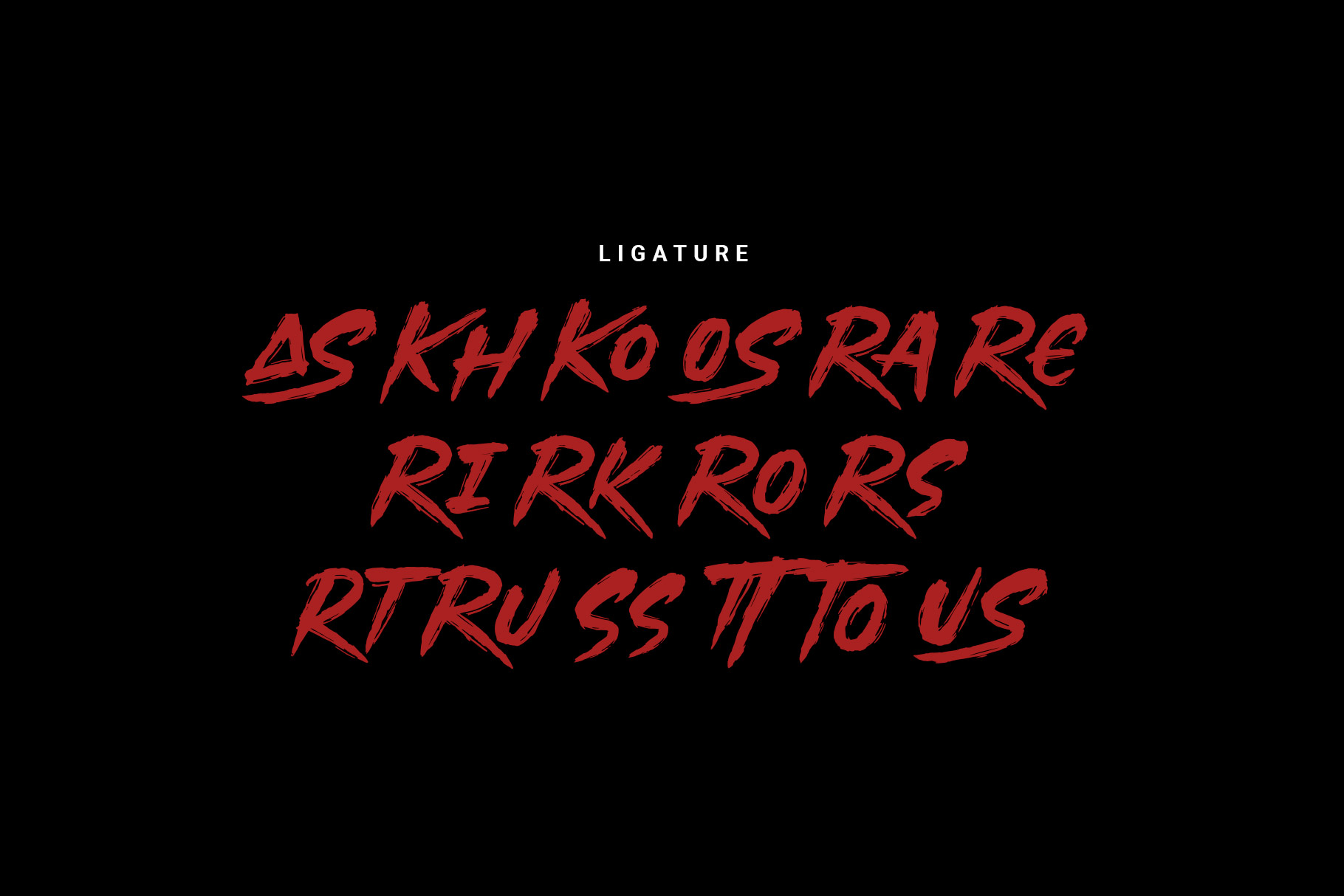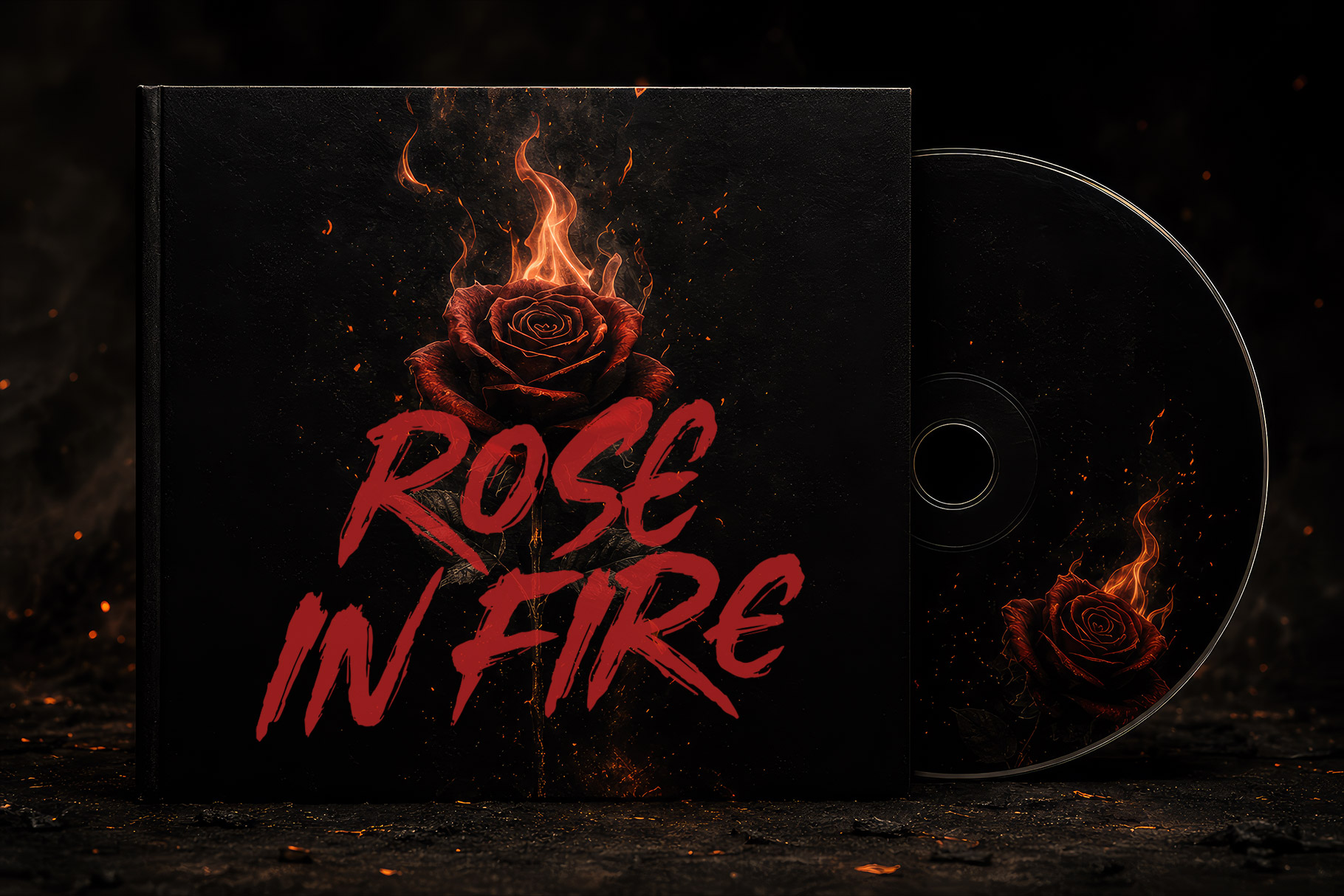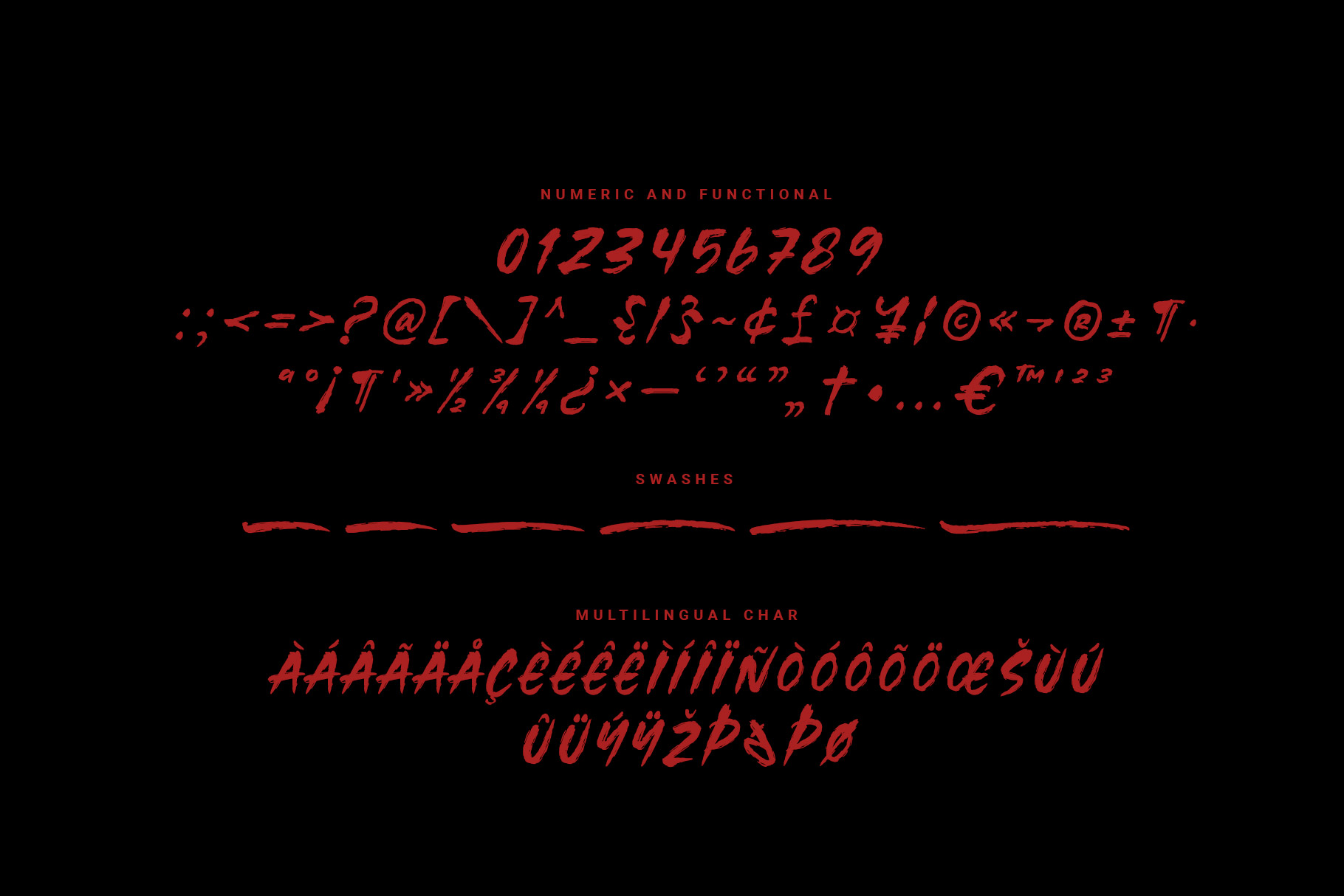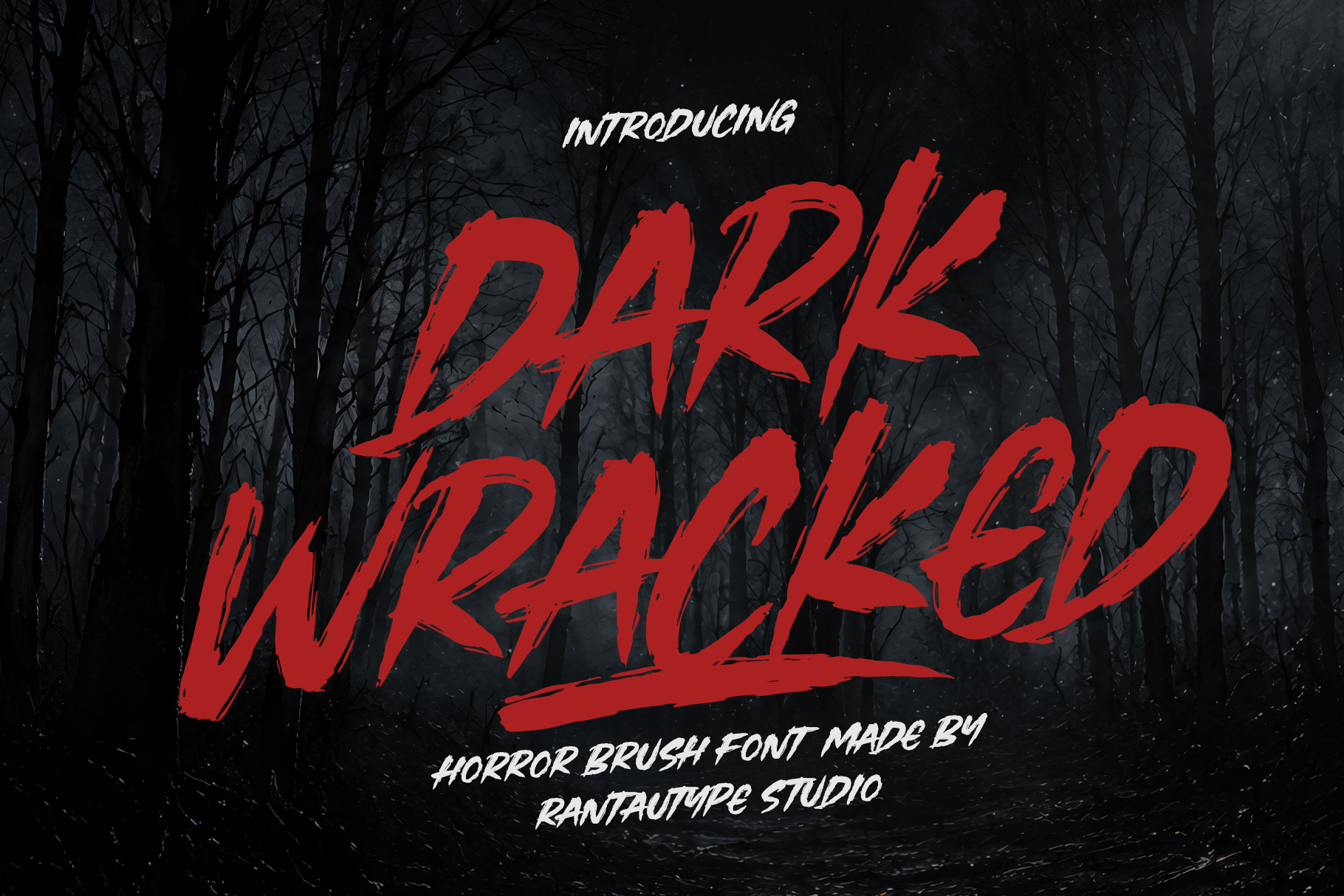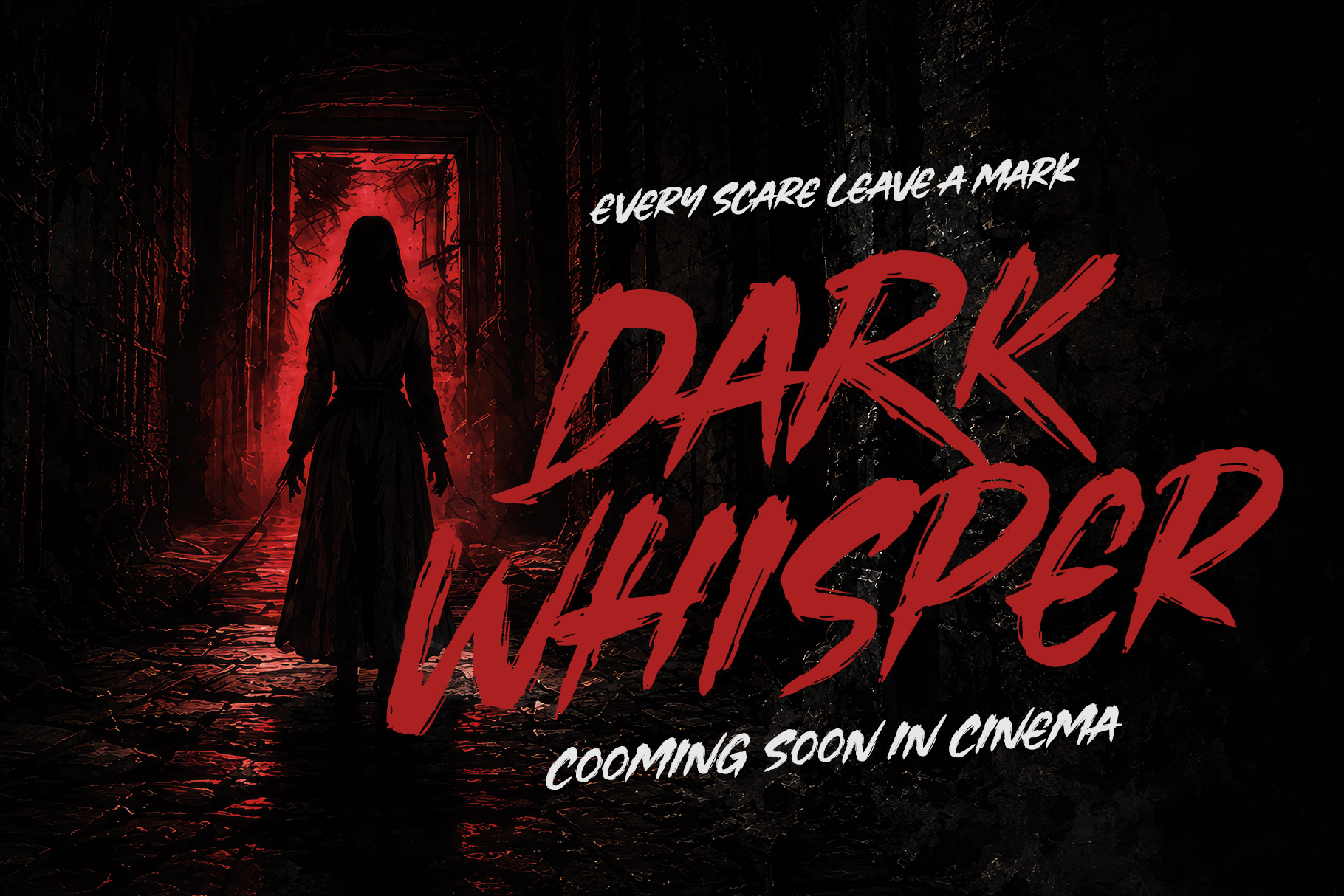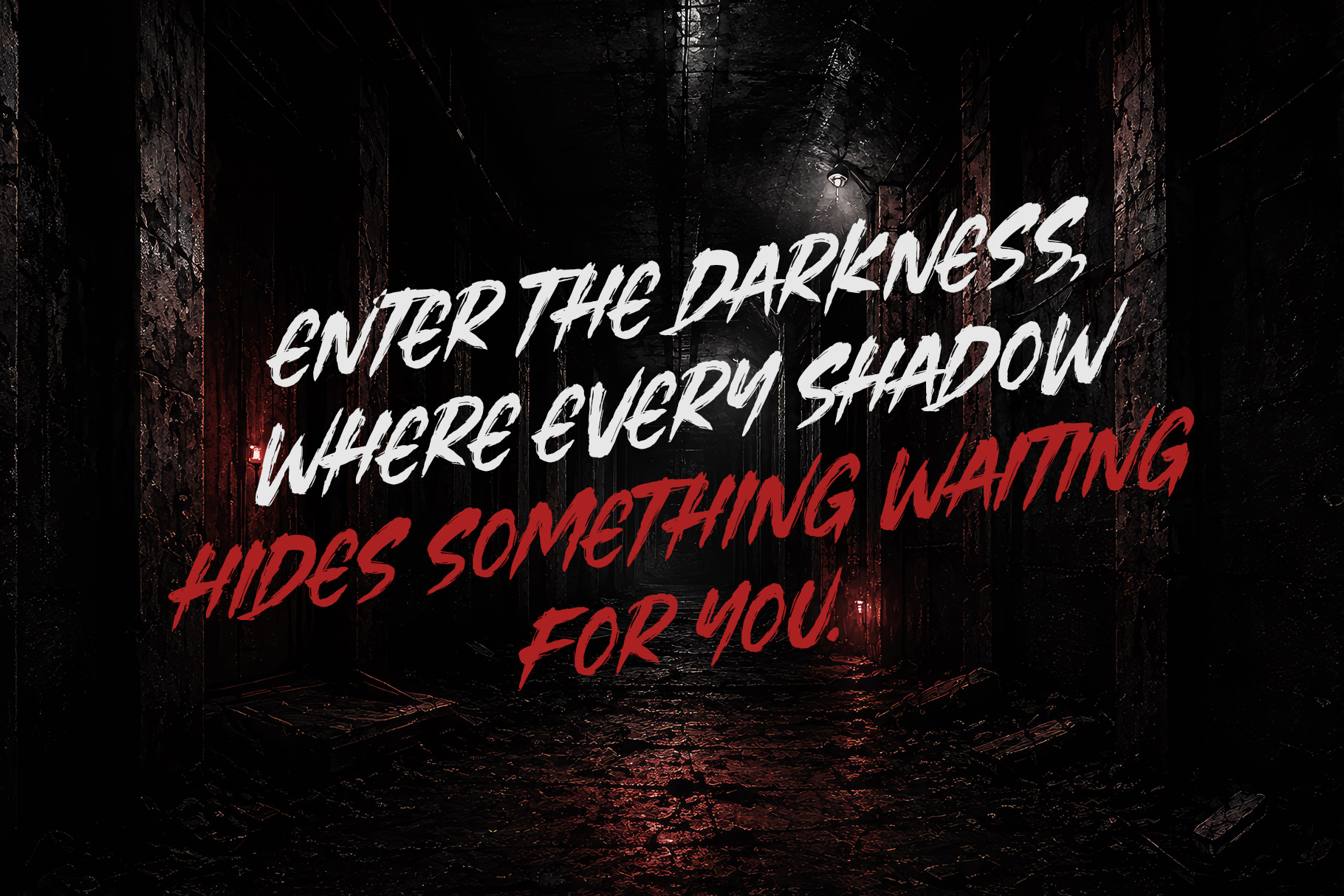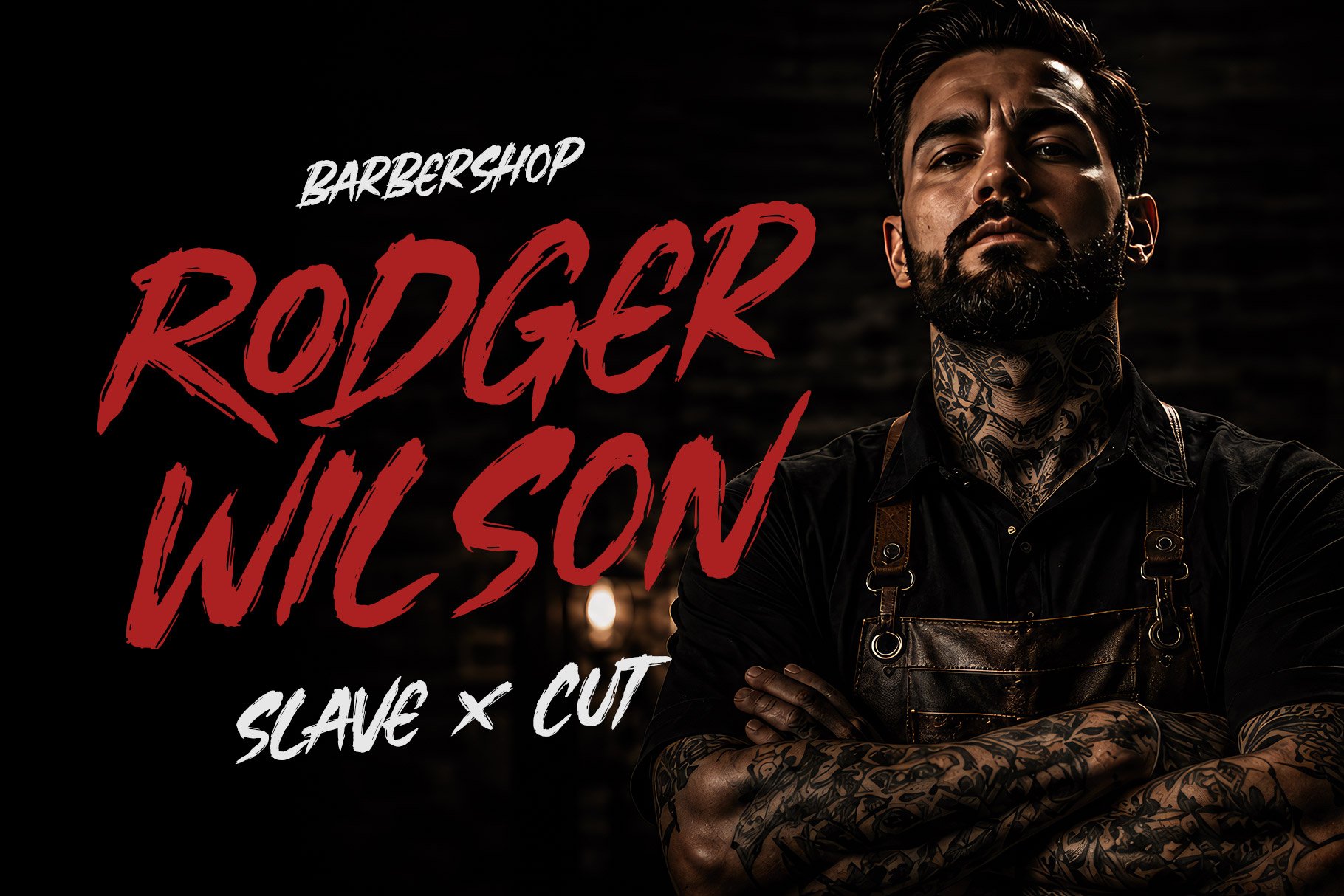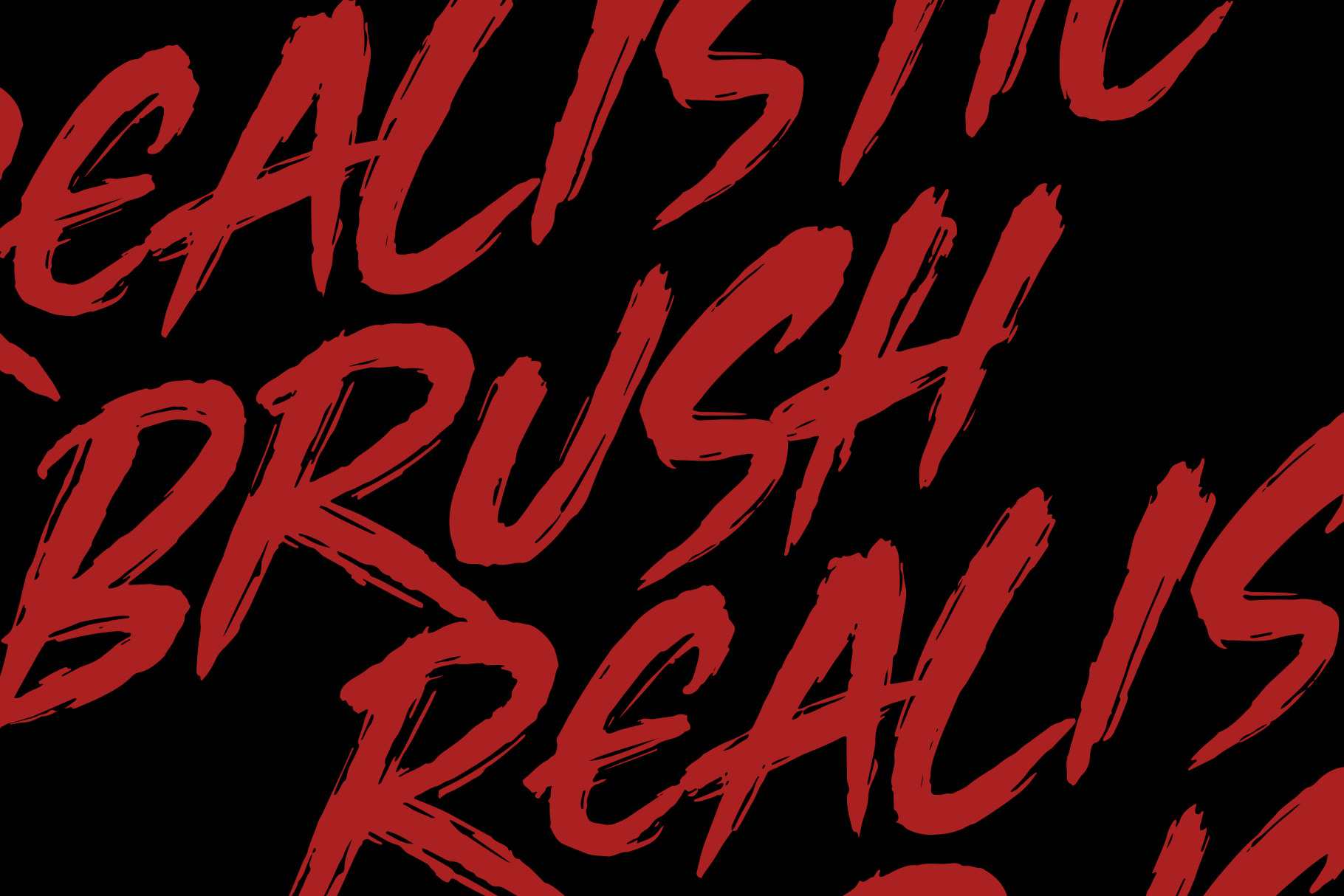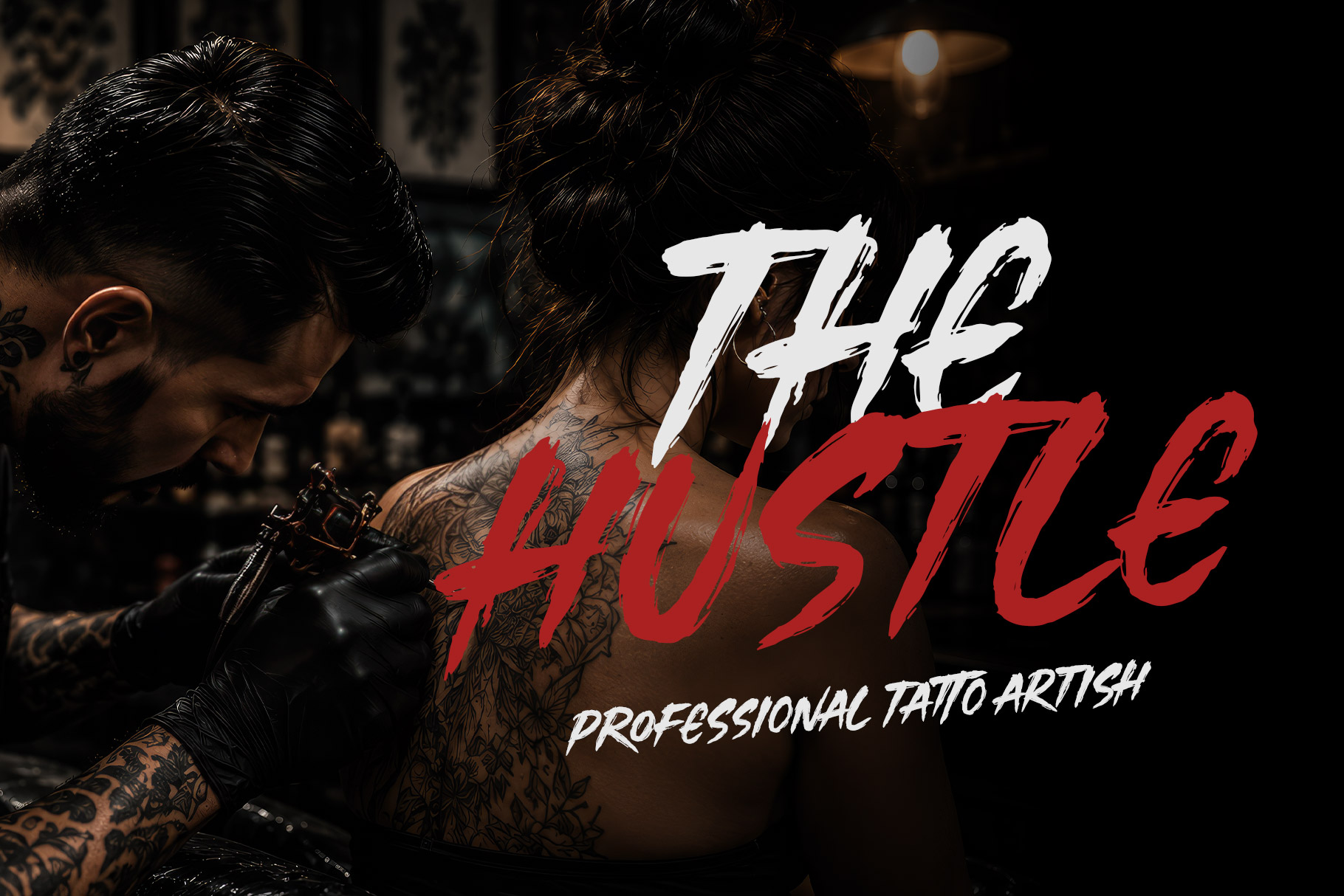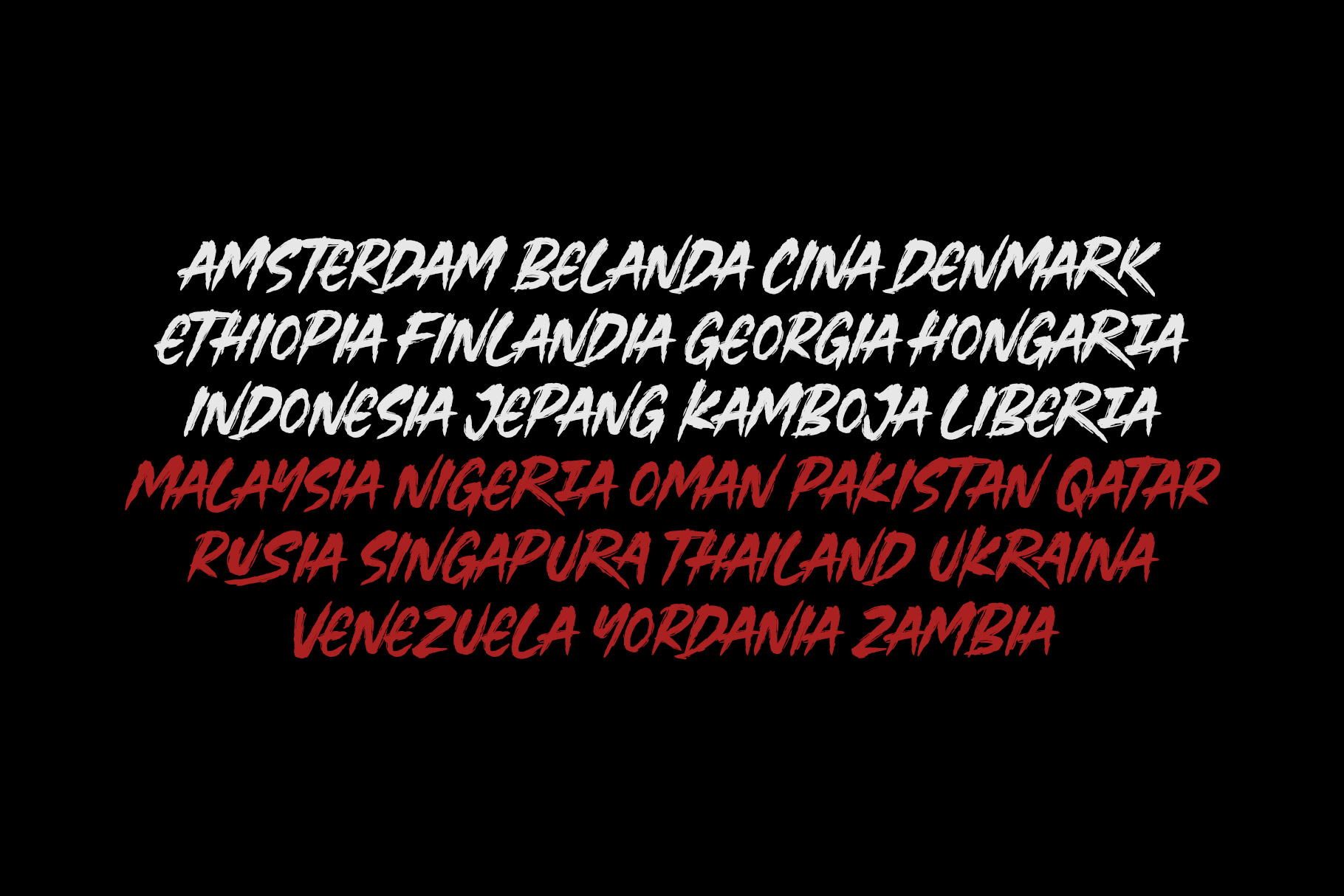
Dark Wracked is brush font combines raw energy, aggressive movement, and distressed hand-painted character with a contemporary visual edge. Its irregular strokes, sharp extensions, rough textures, and dramatic letterforms create an intense personality that naturally fits dark and mysterious themes, while remaining versatile enough for modern creative applications. Dark Wracked is a perfectly choice for any creative endeavor, creating, modern, lifestyle design such as logotype, title, cover, branding, invitations, display and magazine, social media posts, advertisements, printed quotes, product packaging, corporate brand, product designs, labels, photography, watermarks, special events and any other project with modern touch.
Dark Wracked Horror Brush Font